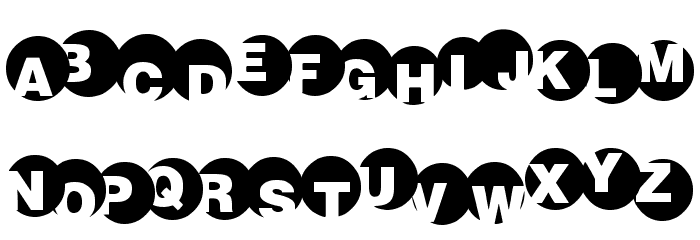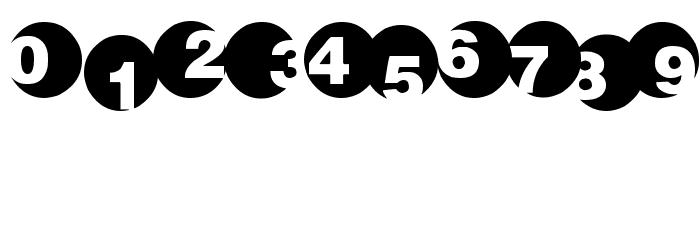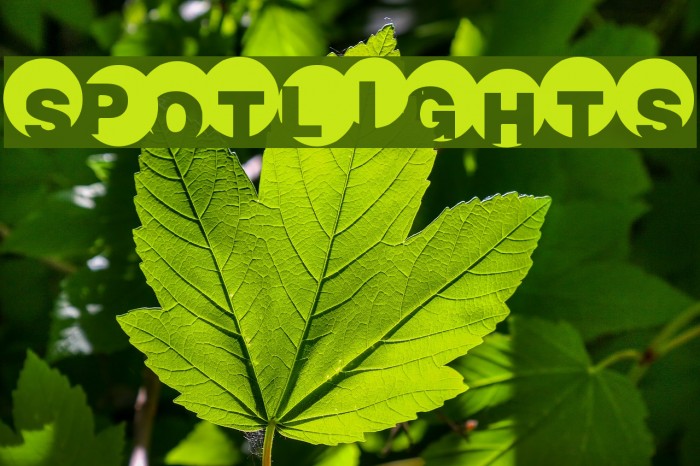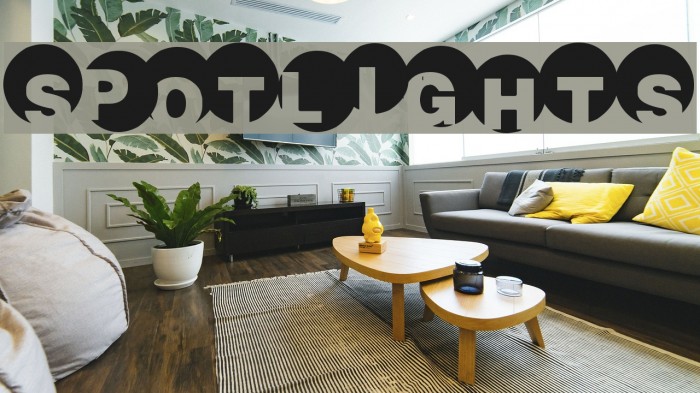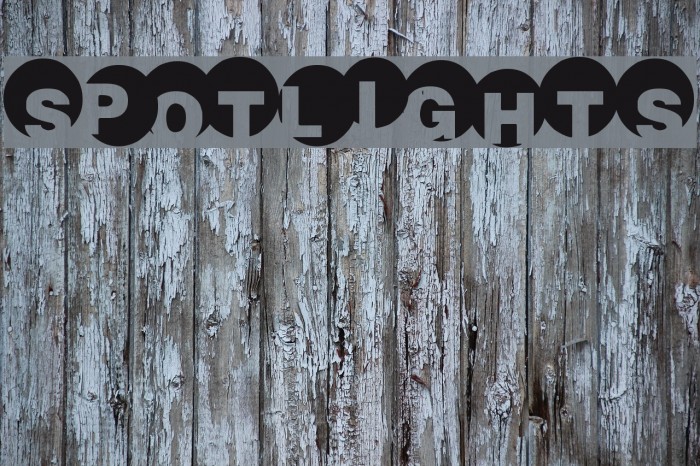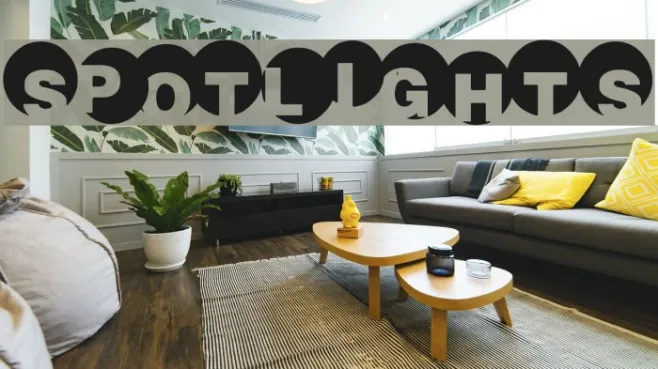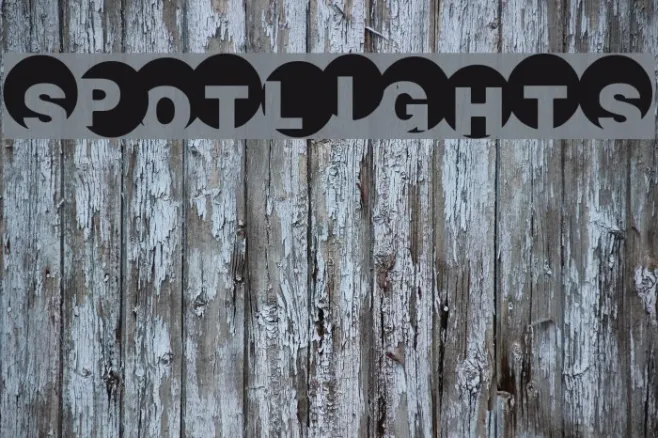
SpotLights Font
This font features a unique and striking design where each character is partially obscured by a bold, circular shape, creating a spotlight effect. The letters and numbers are modern and geometric, with sharp edges and clean lines that contrast against the solid black circles. This design choice gives the font a dynamic and playful appearance, making it stand out in any context. The uppercase and lowercase letters maintain consistent styling, ensuring uniformity across the typeface. The numbers and special characters are equally bold and distinctive, fitting seamlessly with the overall aesthetic. This font is ideal for projects that require a bold statement and a modern, artistic touch.
A bold, geometric font with a unique spotlight effect created by circular shapes.